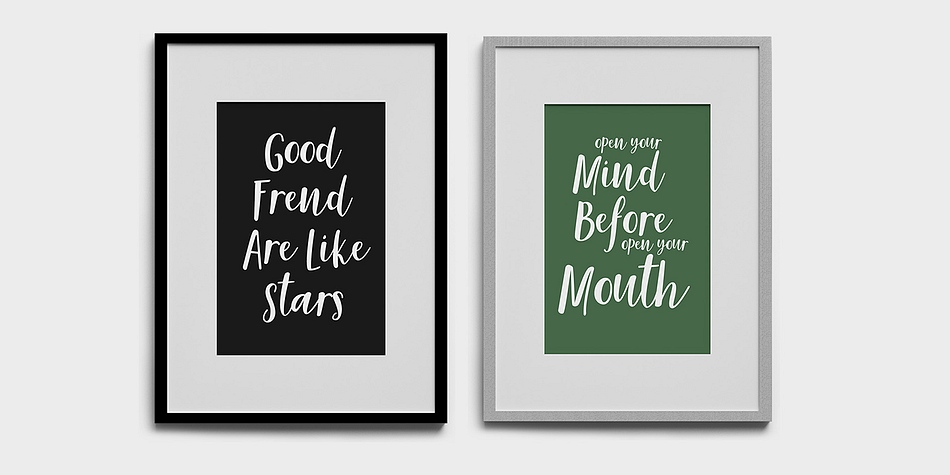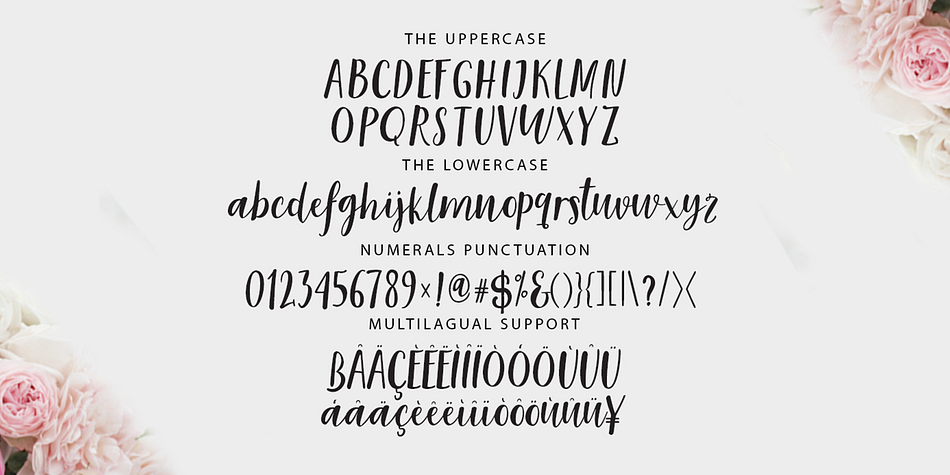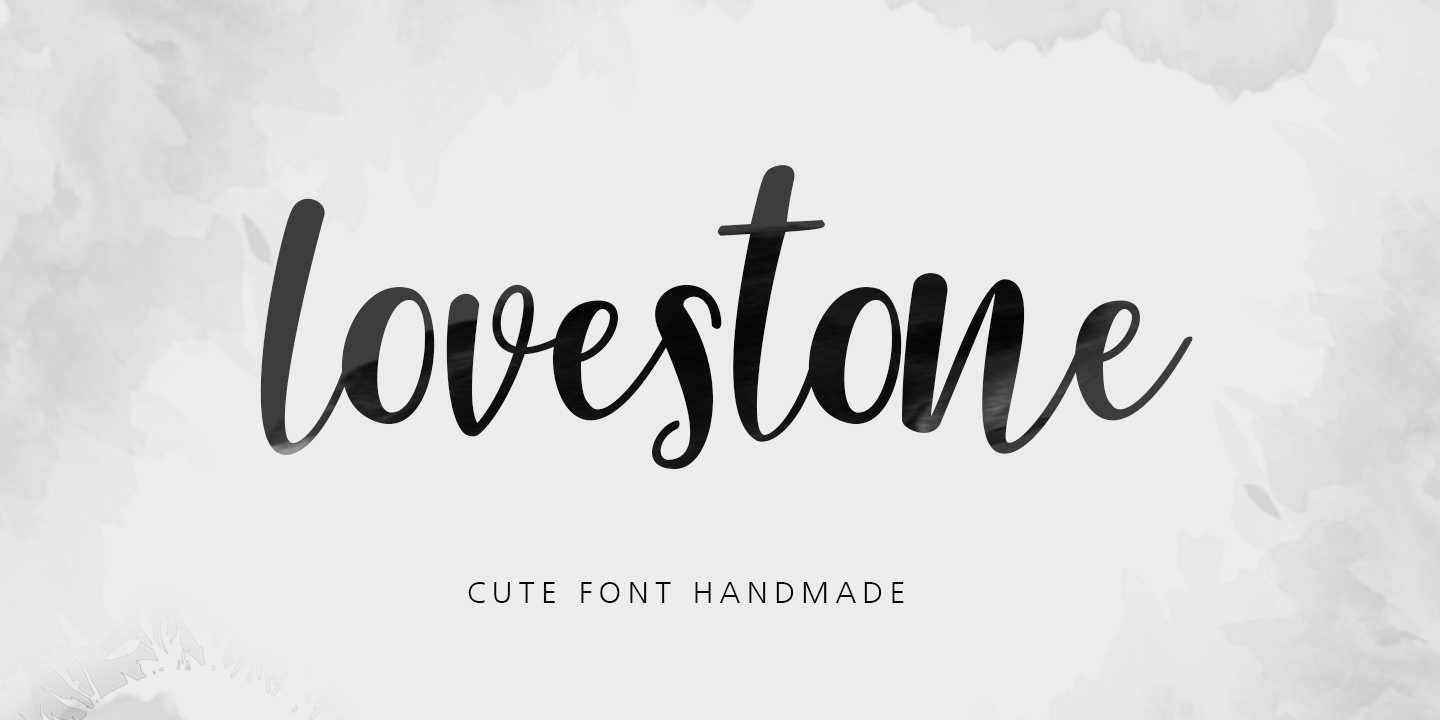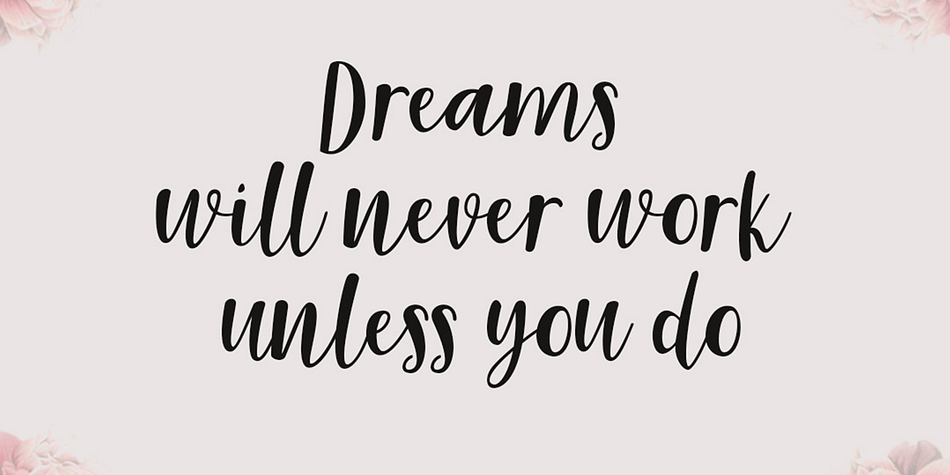
Lovestone Script
Lovestone Script is a modern calligraphy and script font family published by Fontasticlab.
Thanks what if you are interested in Lovestone Script! Script Font a fun yet elegant with nice shape and trendy, which allows you to create beautiful handmade typography and beautiful for the sake of your design.